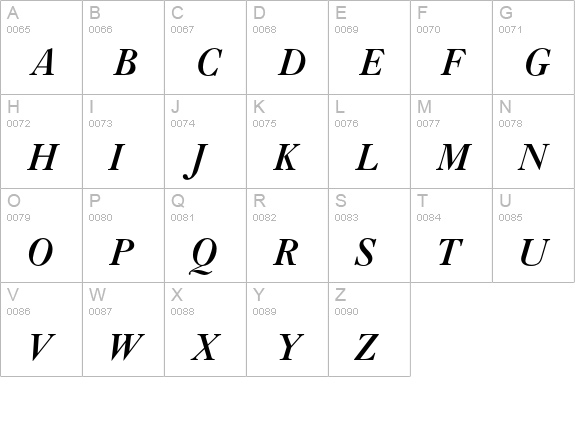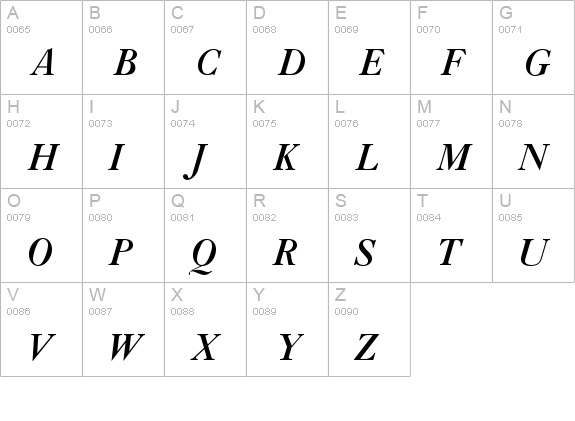
CaslonBoldZH-Italic Font Details
CaslonBoldZH-Italic is a distinctive, italic variant in the CaslonBoldZH typeface family \xE2\x80\x94 well suited to design and typography projects.
CaslonBoldZH-Italic is a stylish and elegant font that exudes sophistication and class. The italicized version of the classic CaslonBoldZH font adds a touch of flair and creativity to any design project. Its bold and distinctive letterforms make a strong visual impact, perfect for headlines, titles, and other prominent text elements. This font is versatile and can be used for a variety of design purposes, from branding to editorial design. The italic slant adds a dynamic and modern twist to the traditional Caslon typeface, making it stand out from the crowd. Best of all, CaslonBoldZH-Italic is available for free download at FontsMarket.com. You can easily access this beautiful font and incorporate it into your projects without any cost. Don't miss out on this opportunity to enhance your designs with the timeless elegance of CaslonBoldZH-Italic.